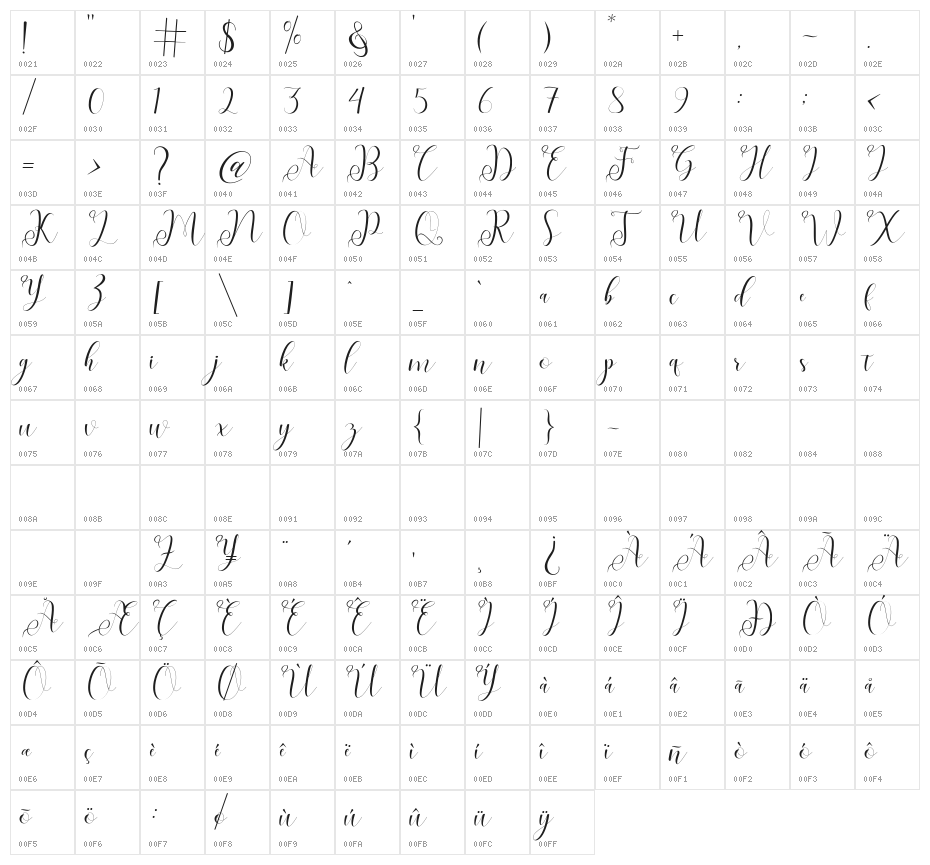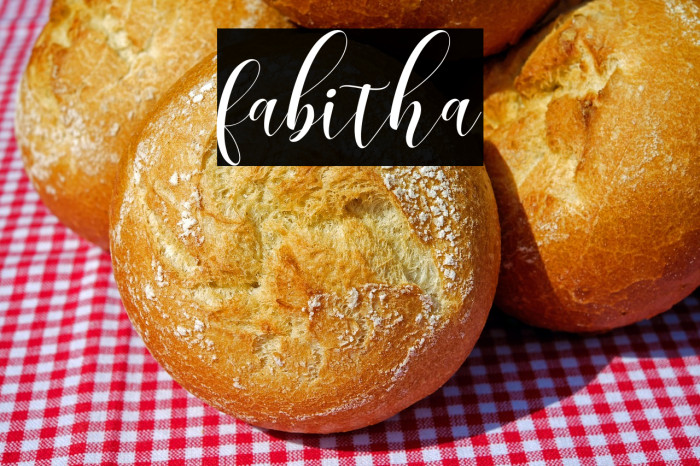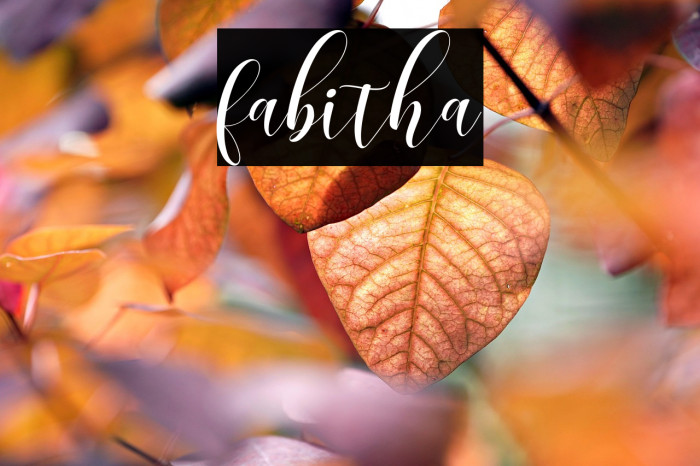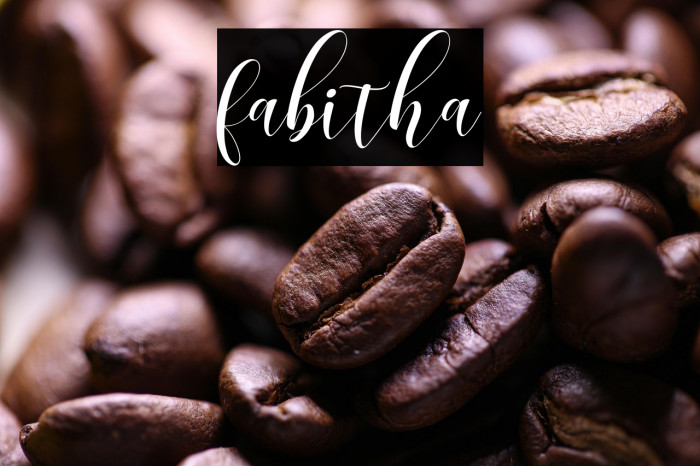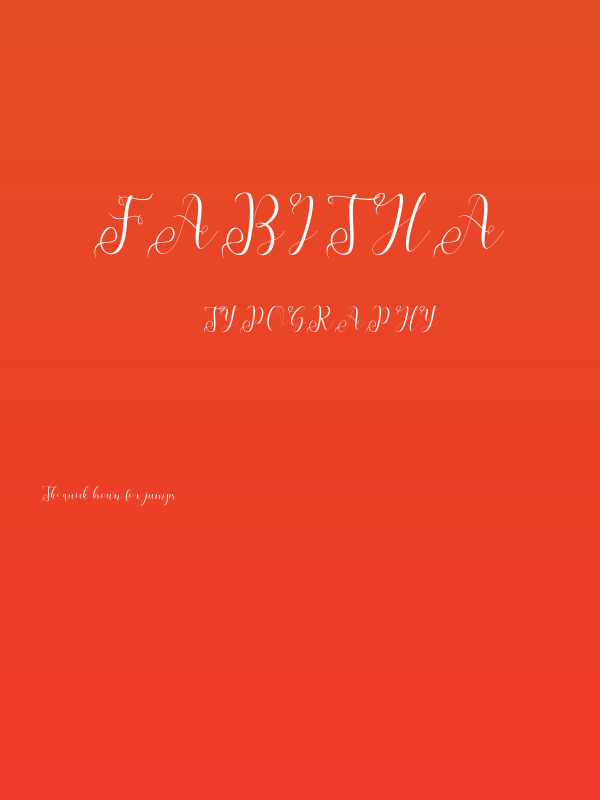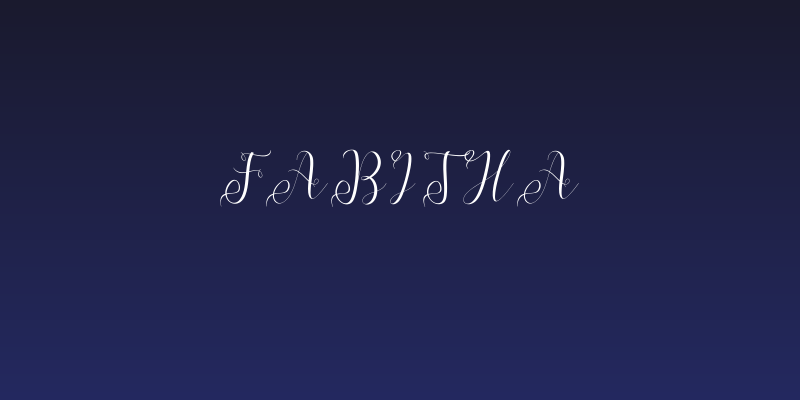
fabitha Font
fabitha Description
This font exudes elegance and sophistication with its flowing, cursive style. Each letter is crafted with delicate loops and swirls, creating a sense of movement and grace. The uppercase letters are particularly ornate, featuring intricate flourishes that add a touch of luxury. The lowercase letters maintain a consistent style, with smooth curves and a slightly slanted orientation. The numerals are equally stylish, matching the overall aesthetic with their sleek and slender forms. Special characters are thoughtfully designed, complementing the font's artistic flair. This font is perfect for projects that require a touch of class and refinement.
| Overall Style | Elegant |
| Use Case | Logos, Invitations, Branding |
| Proposed Projects | Ideal for wedding invitations, luxury branding, elegant stationery, and high-end product packaging. |